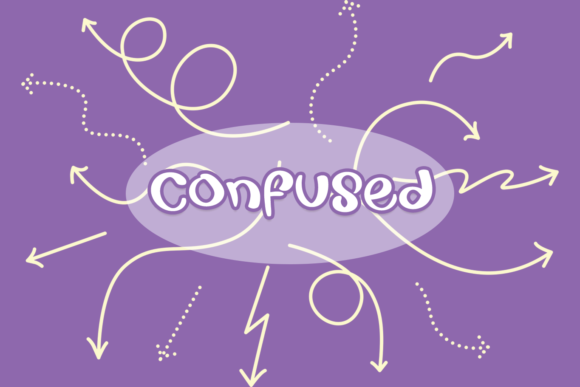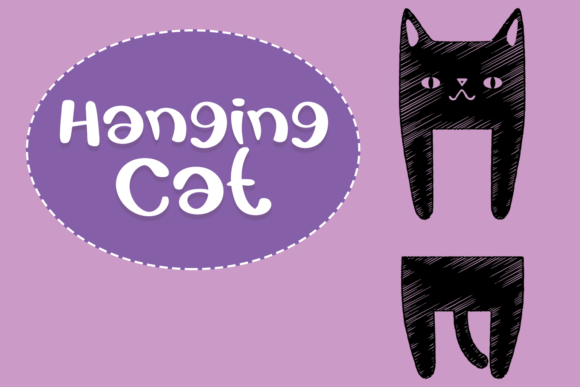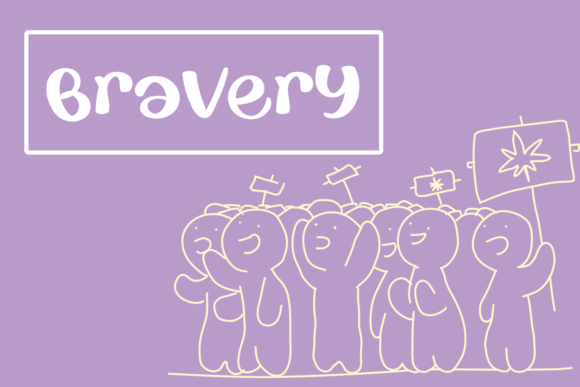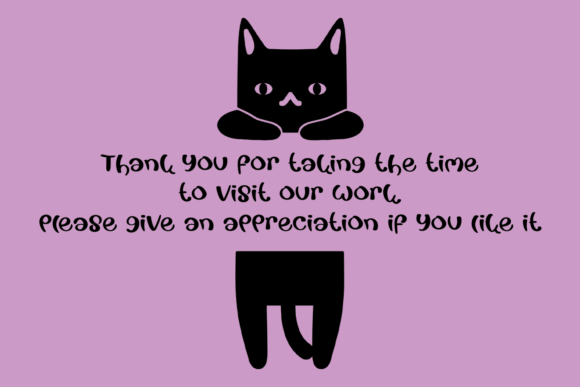
Doodles Font: Add a Touch of Youth and Joy to Your Designs
Are you looking for a font that can add a playful and youthful touch to your designs? Look no further than Doodles Font! This cool and cute-looking display font is perfect for party invitations, apparel, and any design that requires a dash of fun and joy. In this article, we’ll explore the features and benefits of Doodles Font, and how you can use it to take your designs to the next level.
What is Doodles Font?
Doodles Font is a display font designed to bring a sense of playfulness and whimsy to your designs. Its unique and quirky style makes it perfect for designs that require a touch of youth and joy. The font is characterized by its bold lines, irregular shapes, and cute doodles that give it a hand-drawn feel.
Features of Doodles Font
Doodles Font has several features that make it a great choice for designers and crafters. Some of its key features include:
- Unique and Quirky Style: Doodles Font has a one-of-a-kind style that sets it apart from other fonts. Its bold lines, irregular shapes, and cute doodles give it a playful and youthful feel.
- Hand-Drawn Feel: The font has a hand-drawn feel that makes it perfect for designs that require a personal touch.
- Easy to Read: Despite its playful style, Doodles Font is easy to read and can be used for both headings and body text.
- Versatile: Doodles Font can be used for a wide range of designs, from party invitations and apparel to posters and social media graphics.
Benefits of Using Doodles Font
Using Doodles Font in your designs can have several benefits. Some of the benefits include:
- Adds a Touch of Youth and Joy: Doodles Font can add a playful and youthful touch to your designs, making them more appealing to a younger audience.
- Stand Out from the Crowd: The unique style of Doodles Font can help your designs stand out from the crowd and grab attention.
Examples of Doodles Font in Use
Doodles Font can be used in a wide range of designs. Here are some examples:
- Party Invitations: Use Doodles Font to create fun and playful party invitations that will get your guests excited.
- Apparel: Add Doodles Font to your apparel designs, such as t-shirts and mugs, to give them a playful and youthful touch.
- Social Media Graphics: Use Doodles Font to create eye-catching social media graphics that will grab attention and engage your audience.
Doodles Font is a cool and cute-looking display font that can add a touch of youth and joy to your designs. Its unique and quirky style makes it perfect for party invitations, apparel, and any design that requires a dash of fun and playfulness. With its ease of use, versatility, and cost-effectiveness, Doodles Font is a great choice for designers and crafters who want to take their designs to the next level.